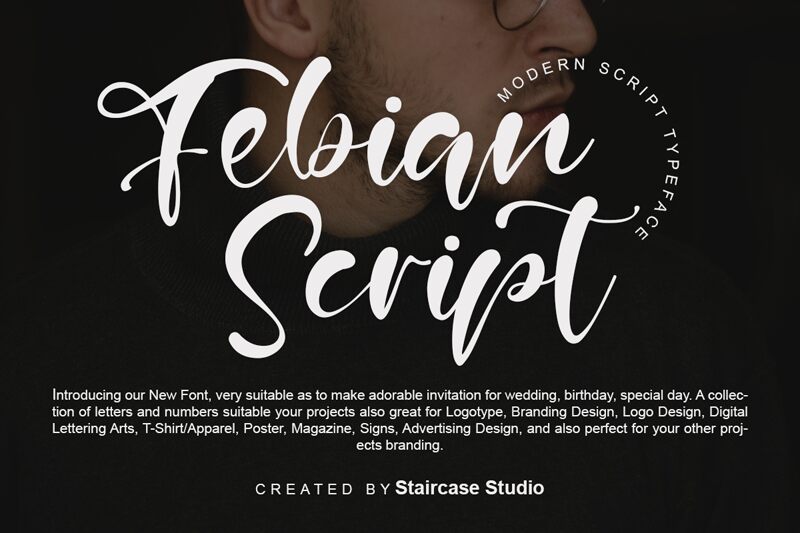
Febian Script
With a touch of elegance and a dash of modernity, Febian Script is the perfect font for any project looking to make a statement. Designed by Staircase Studio, this modern script font features flowing strokes and bold curves that are sure to catch the eye. Whether you're designing a wedding invitation, creating a logo for your business, or simply want to add some flair to your website, Febian Script is the ideal choice. Its unique style and versatility make it suitable for everything from fashion blogs to food packaging. Give your designs an edge with Febian Script!